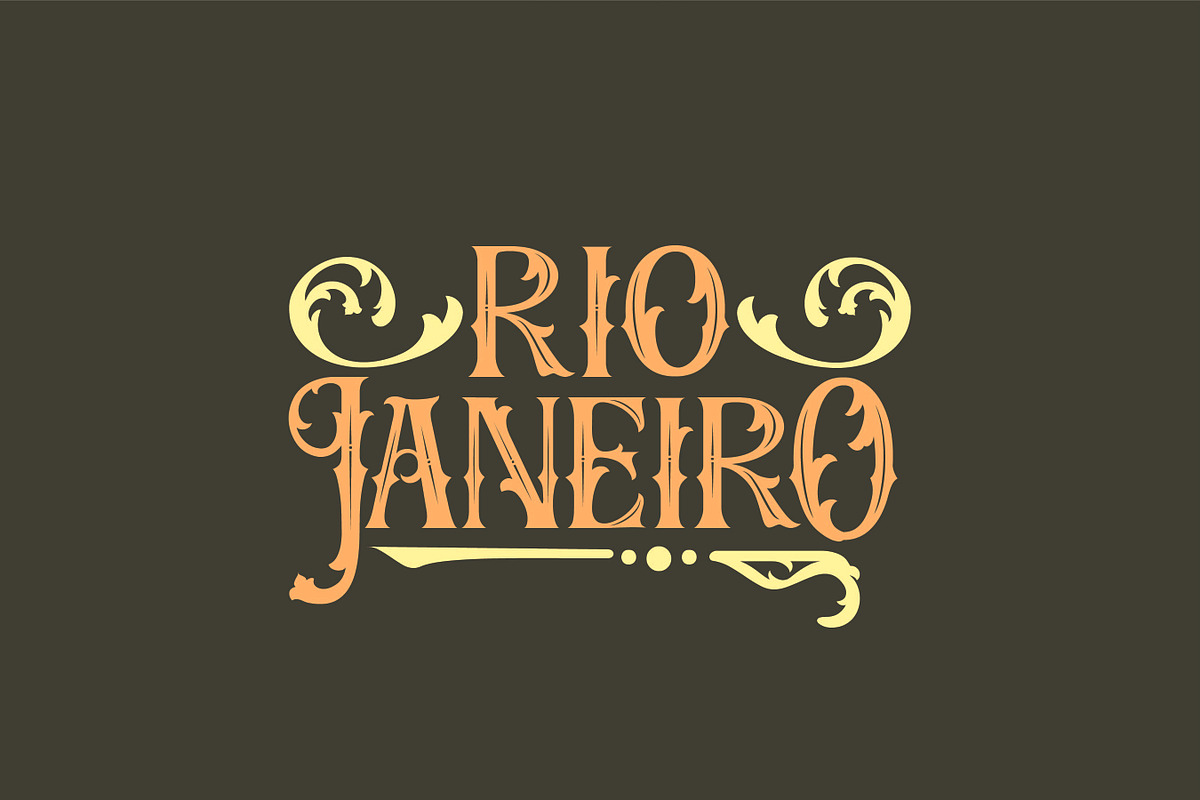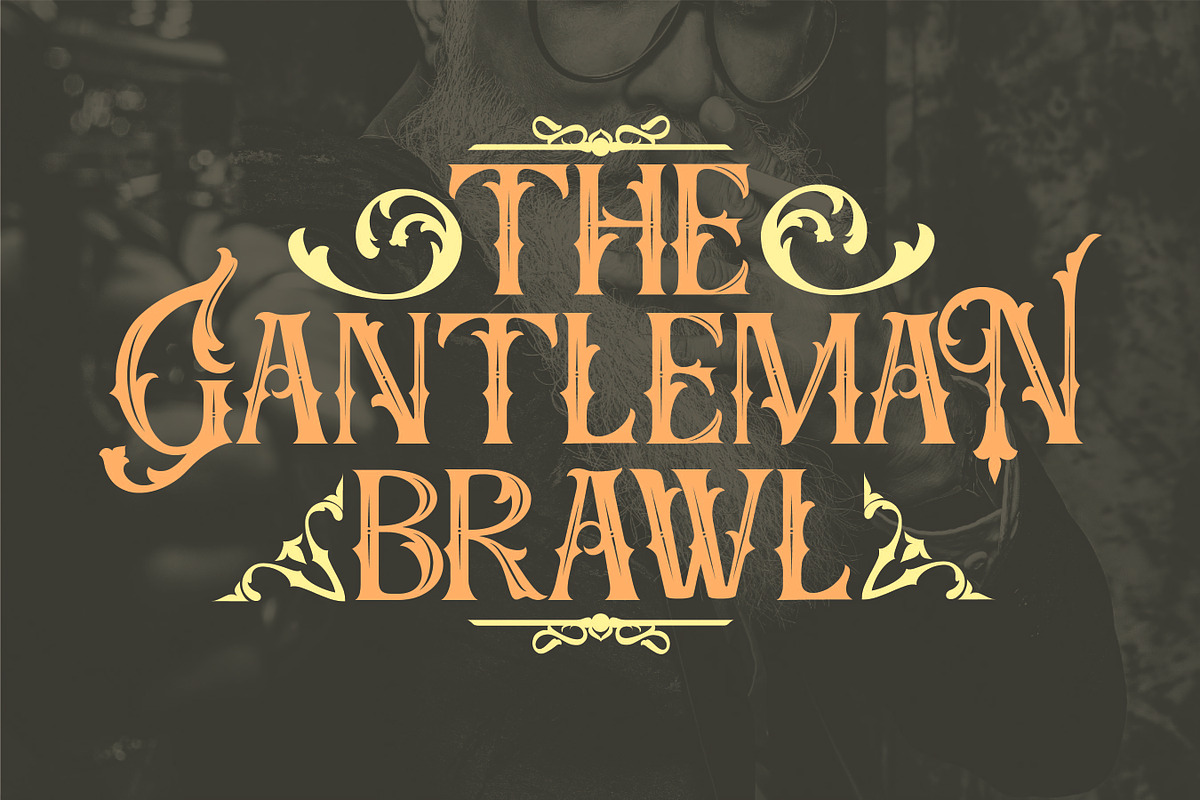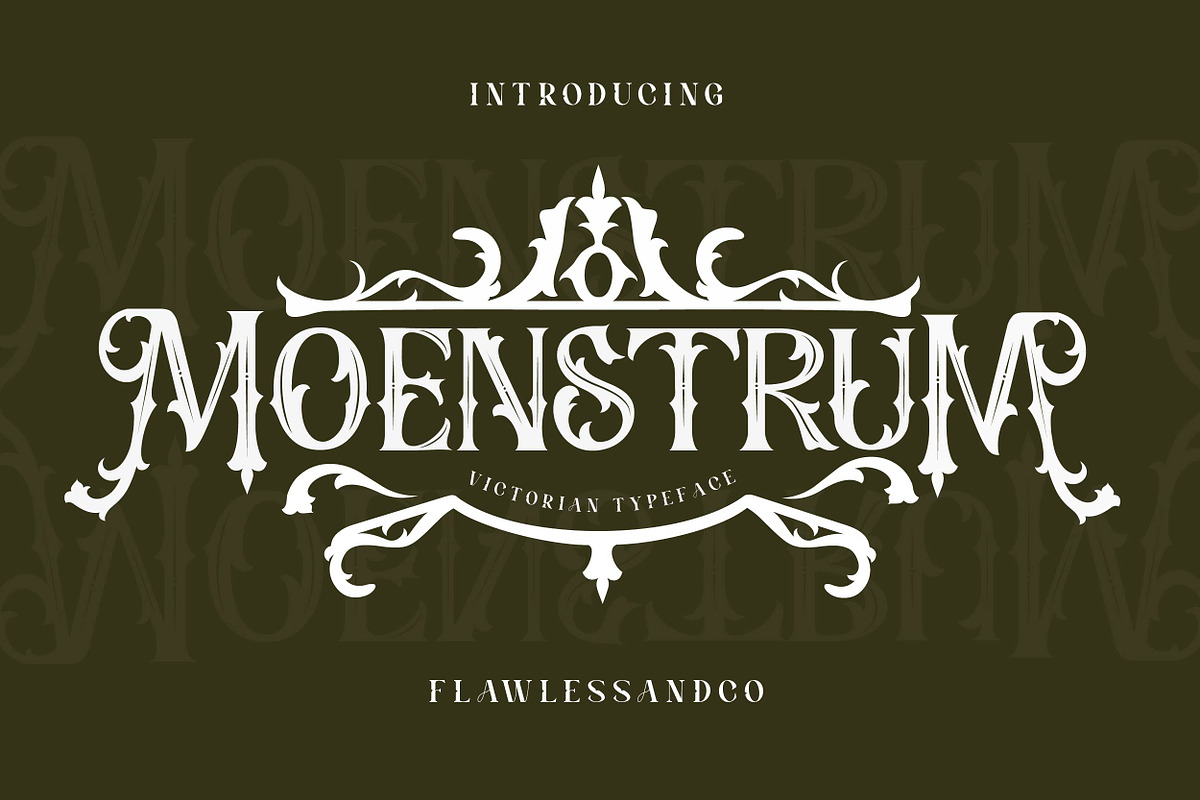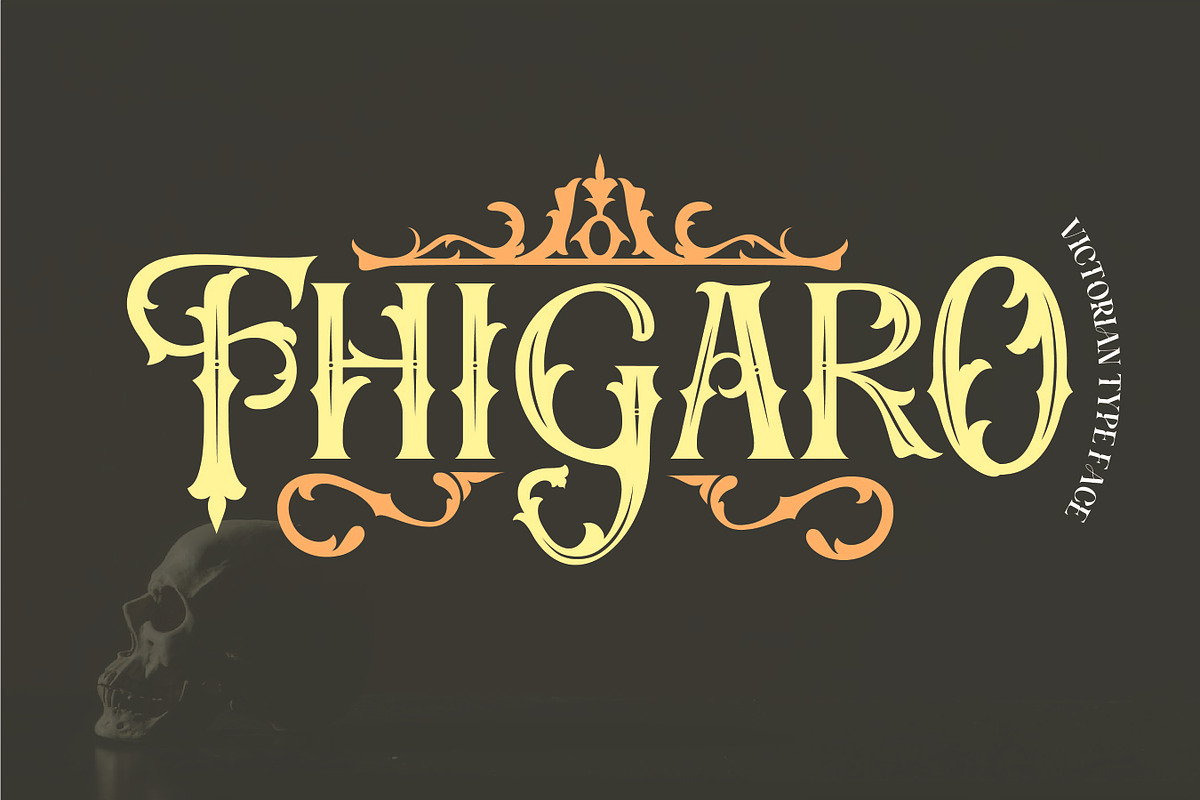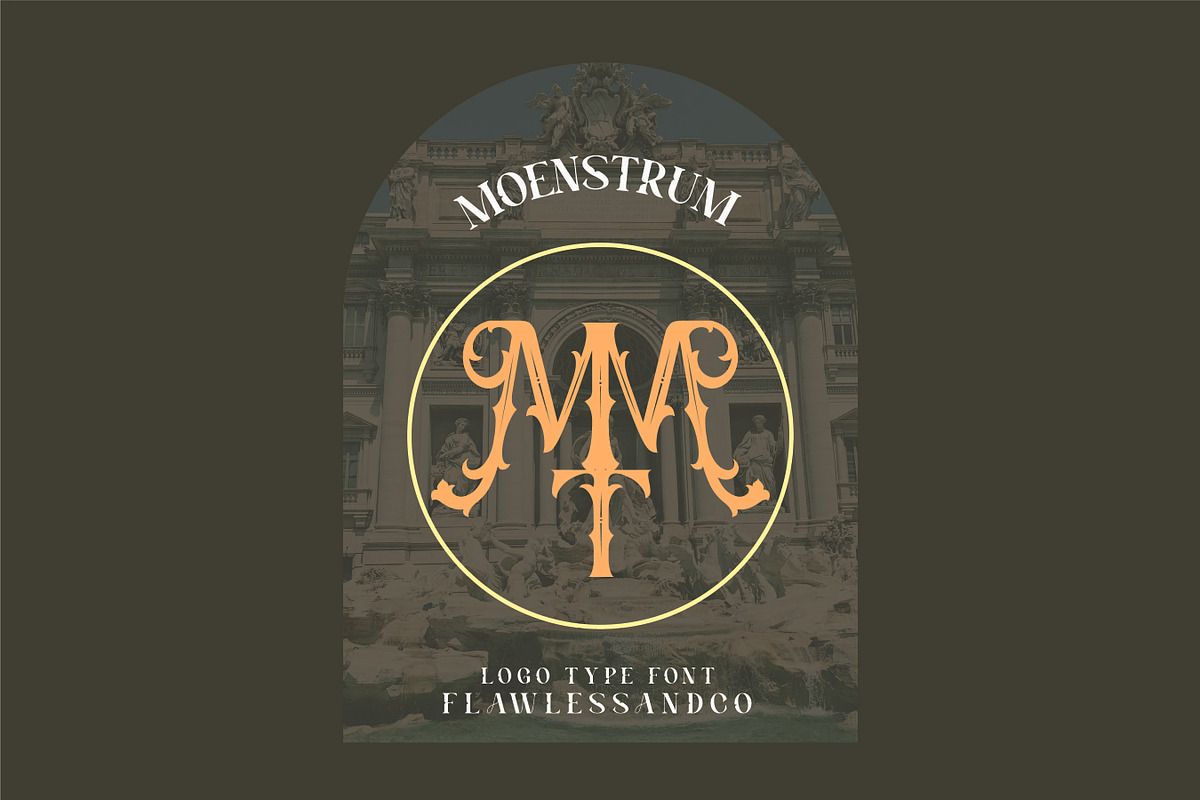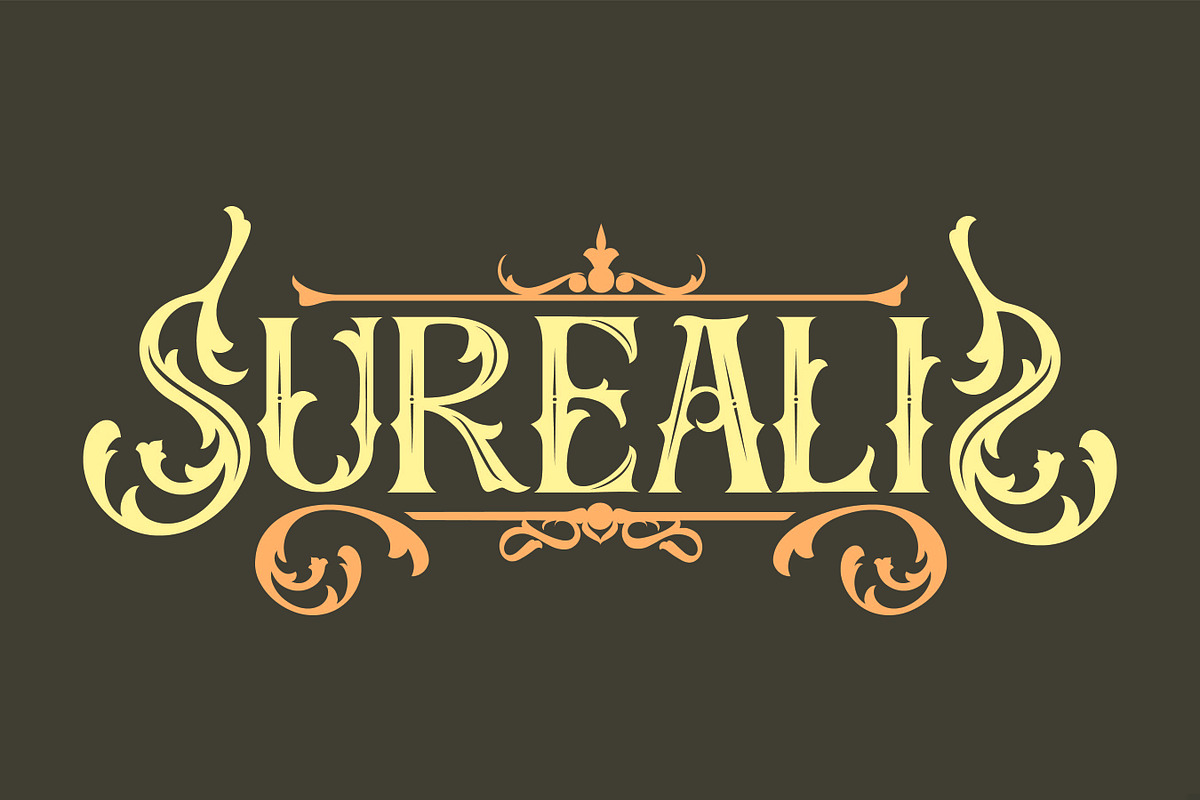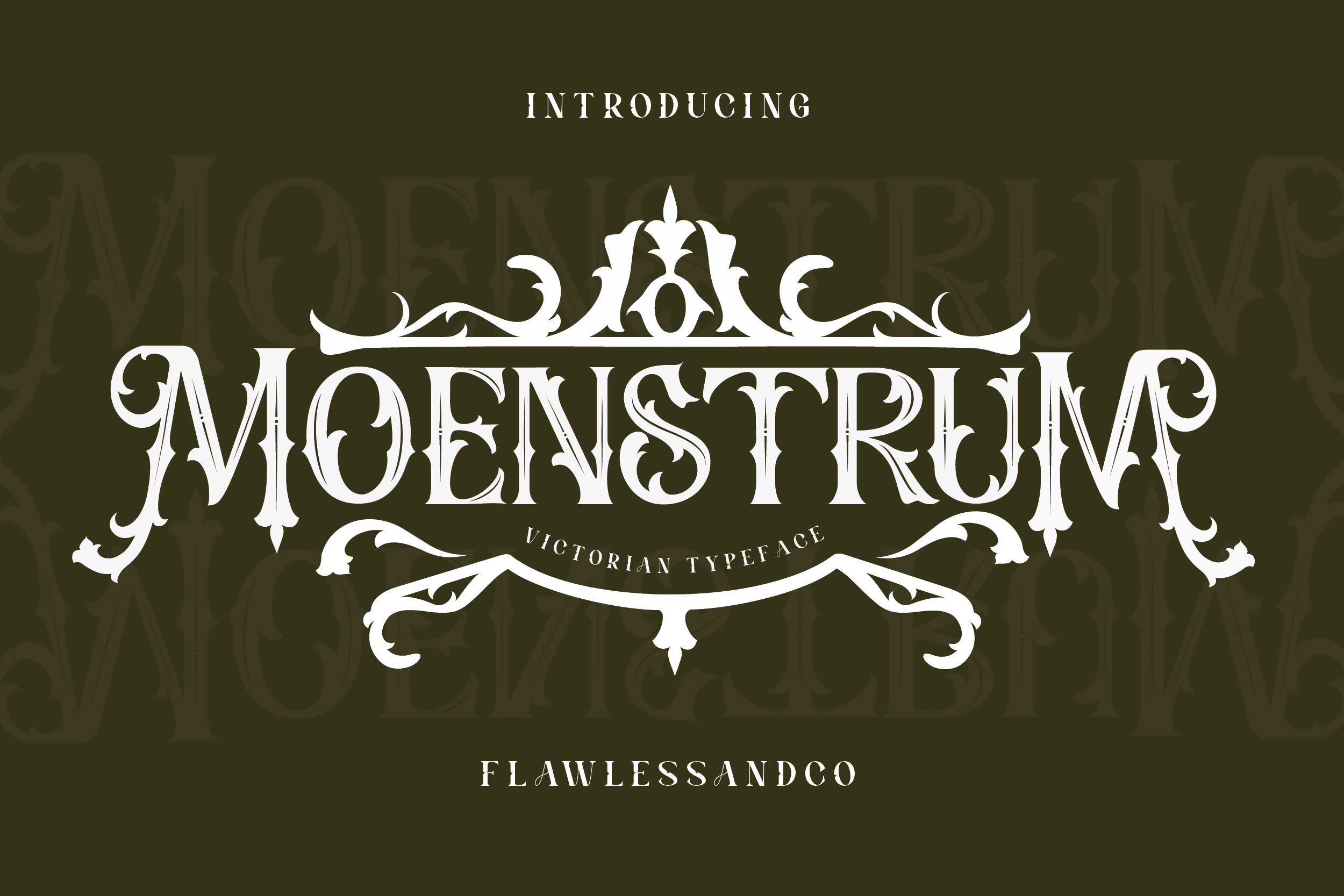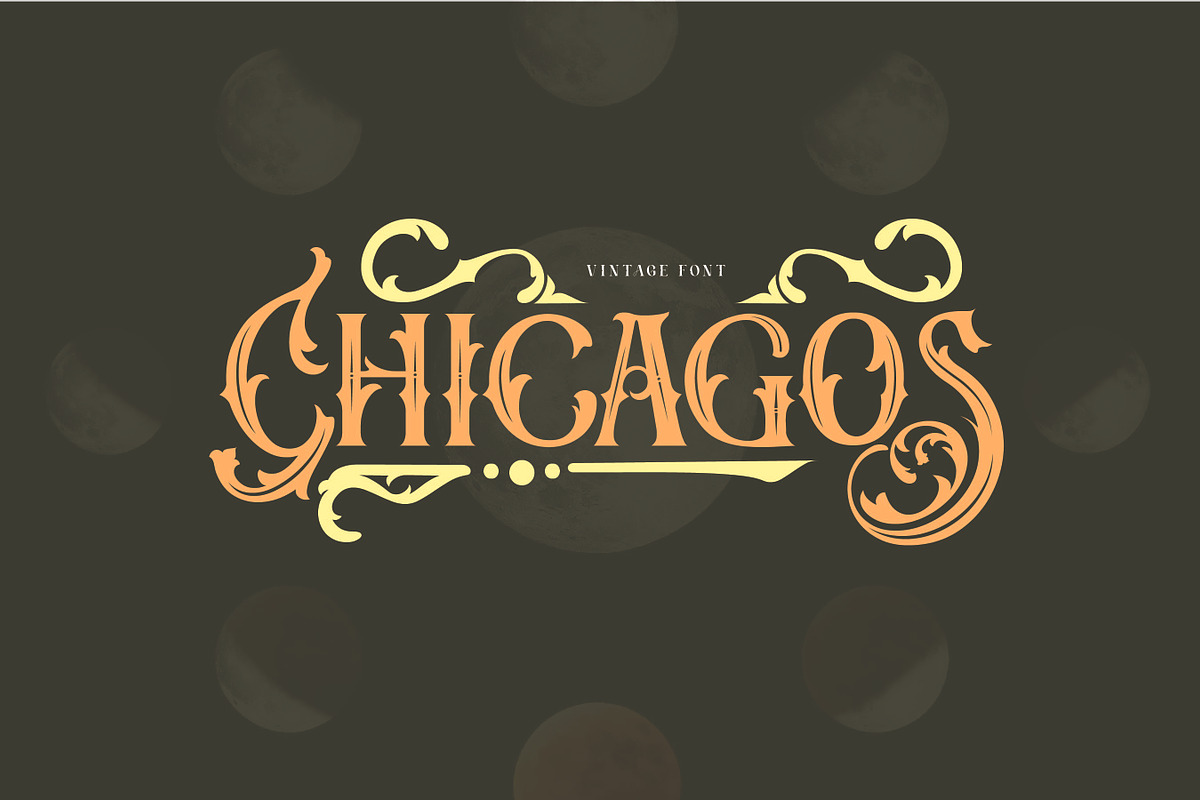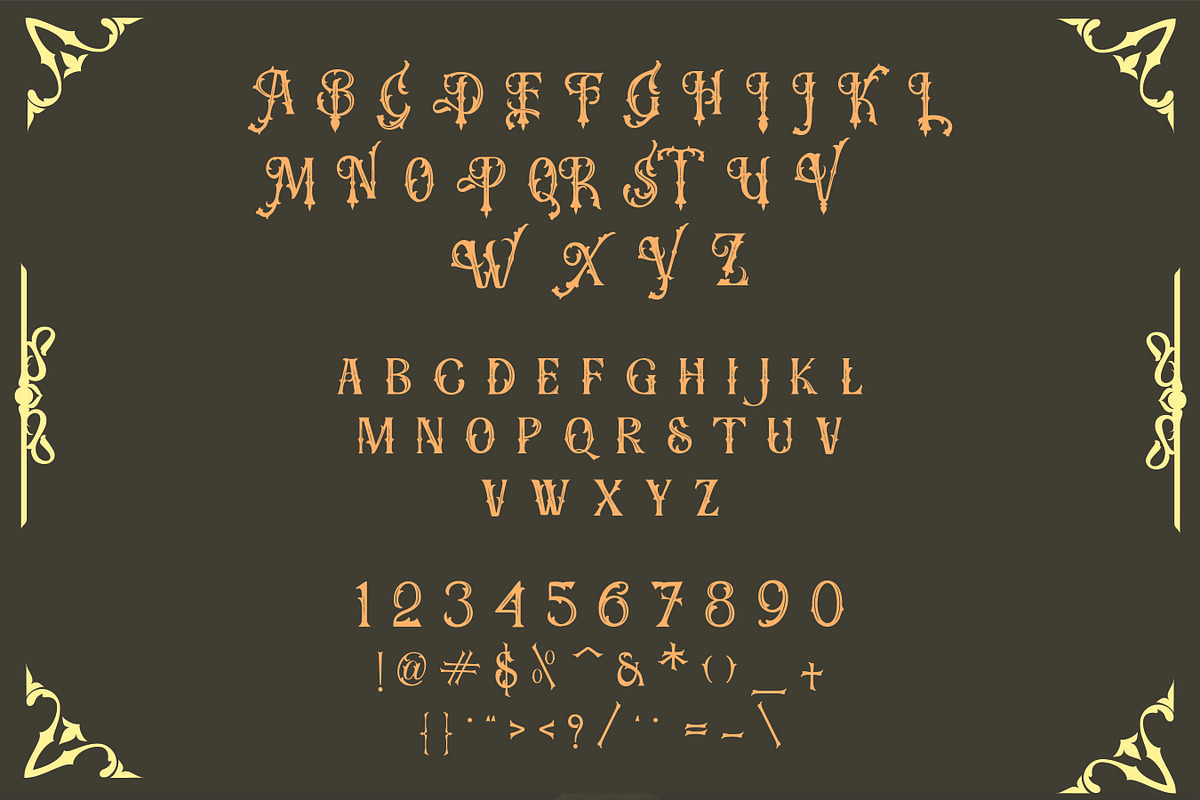
Moenstrum - Victorian Font
Introduction our new "MOENSTRUM" Modern Blackletter Font that gives Elegant style is perfect for your design.
Multilingual Uppercase alphabet A-Z Lowercase alphabet a-z Alternate Character Numbers 0-9 Some punctuation